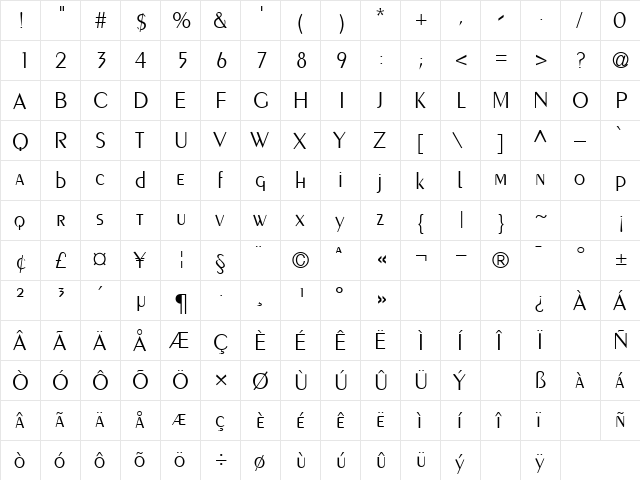
Overset Normal Font Preview
Overset Normal
Design Context for Overset Typeface
Overset takes a measured approach to typography — its balanced proportions and neutral character make it a reliable workhorse for both digital and print work.